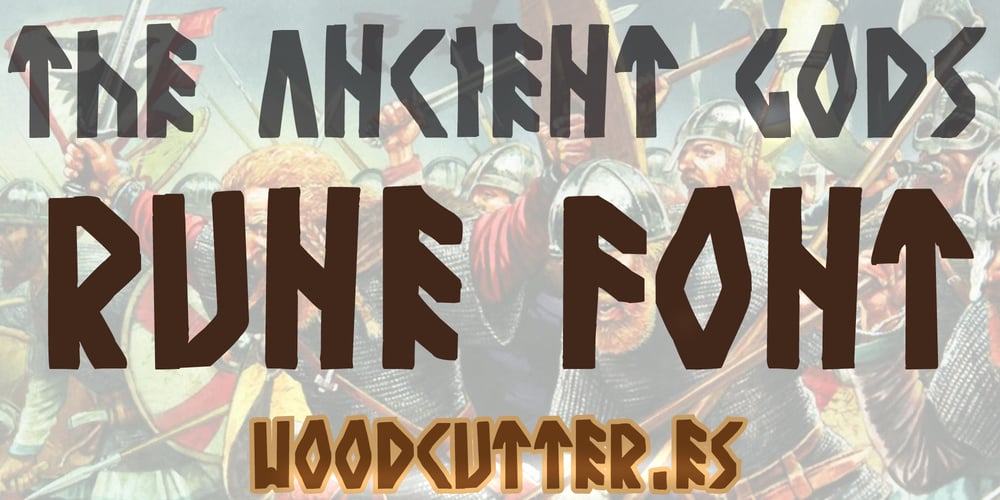
The Ancient Gods
The Ancient Gods font
The Ancient Gods Font Family was designed by Jordi Manero and published by Woodcutter. The Ancient Gods contains 1 styles and family package options. “The Ancient Gods” is a rough typeface with straight lines that evoke a runic and ancient aesthetic. Its characters are designed with a coarse and primitive style, reminiscent of inscriptions carved in stone by ancient civilizations. The solid and robust appearance of the letters conveys a sense of strength and power, ideal for projects aiming to inspire a connection with ancient mythologies, tales of warriors, or mystical elements. It is a font that stands out in headlines and designs that need a touch of mystery and antiquity.